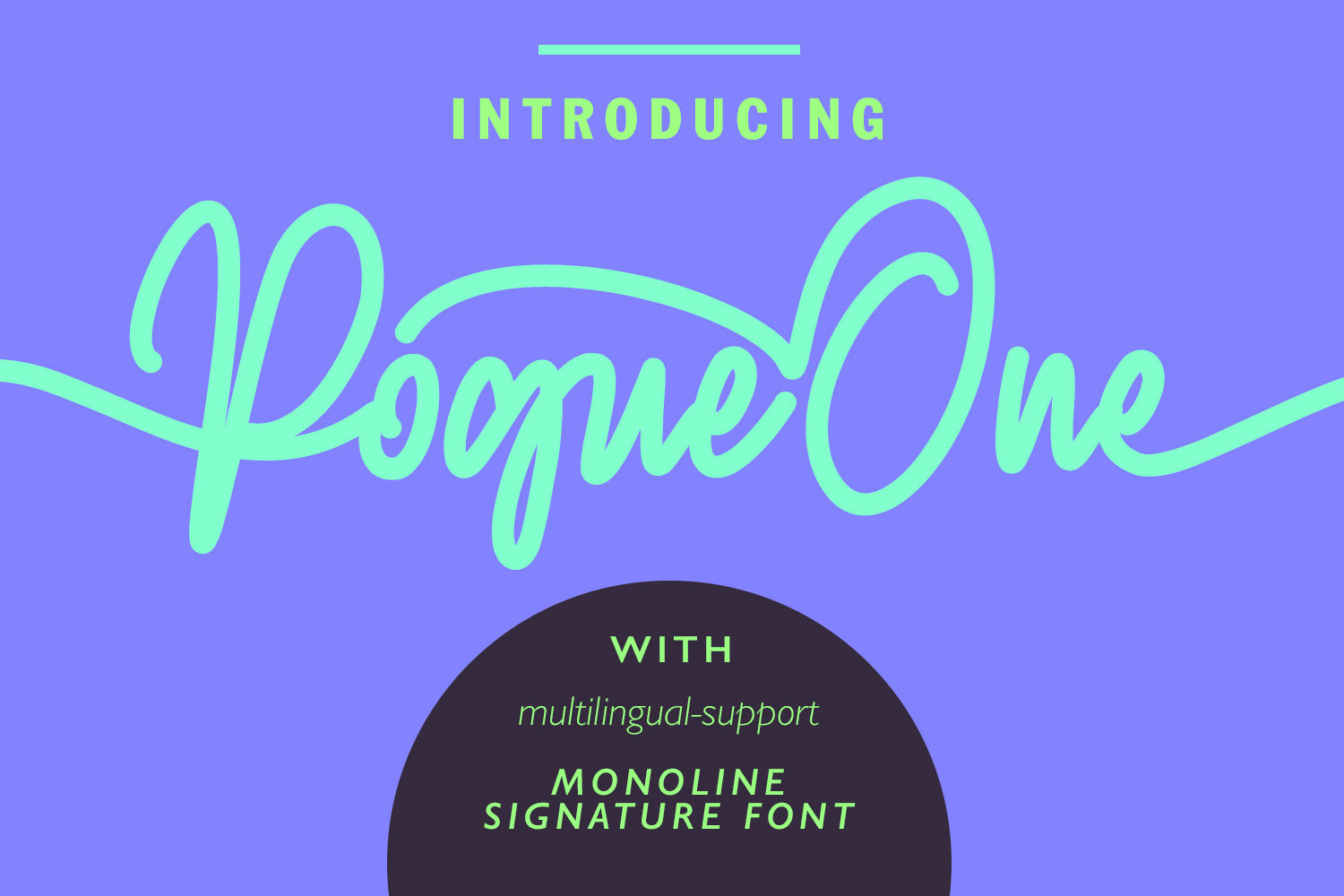
Rogueone Monoline Signature Font
Give your designs an authentic monoline signature handcrafted feel. “Rogueone Monoline Signature Font” is perfectly suited to signature, stationery, logo, typography quotes, website header, branding and more.